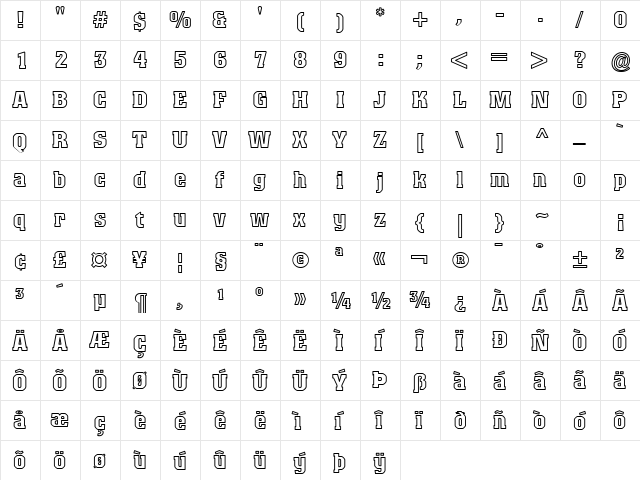
Titanic Outline
Design Context for Titanic Typeface
Titanic is built around its visual character rather than neutral utility — its distinctive forms are designed to make an impression at display sizes.
Font Pairing: Pair with a clean neutral sans-serif for body copy to let Titanic's character lead without overwhelming the composition.
Pro Tip: Treat Titanic as the centrepiece of your typographic hierarchy. One strong heading set in a decorative face can carry an entire layout.